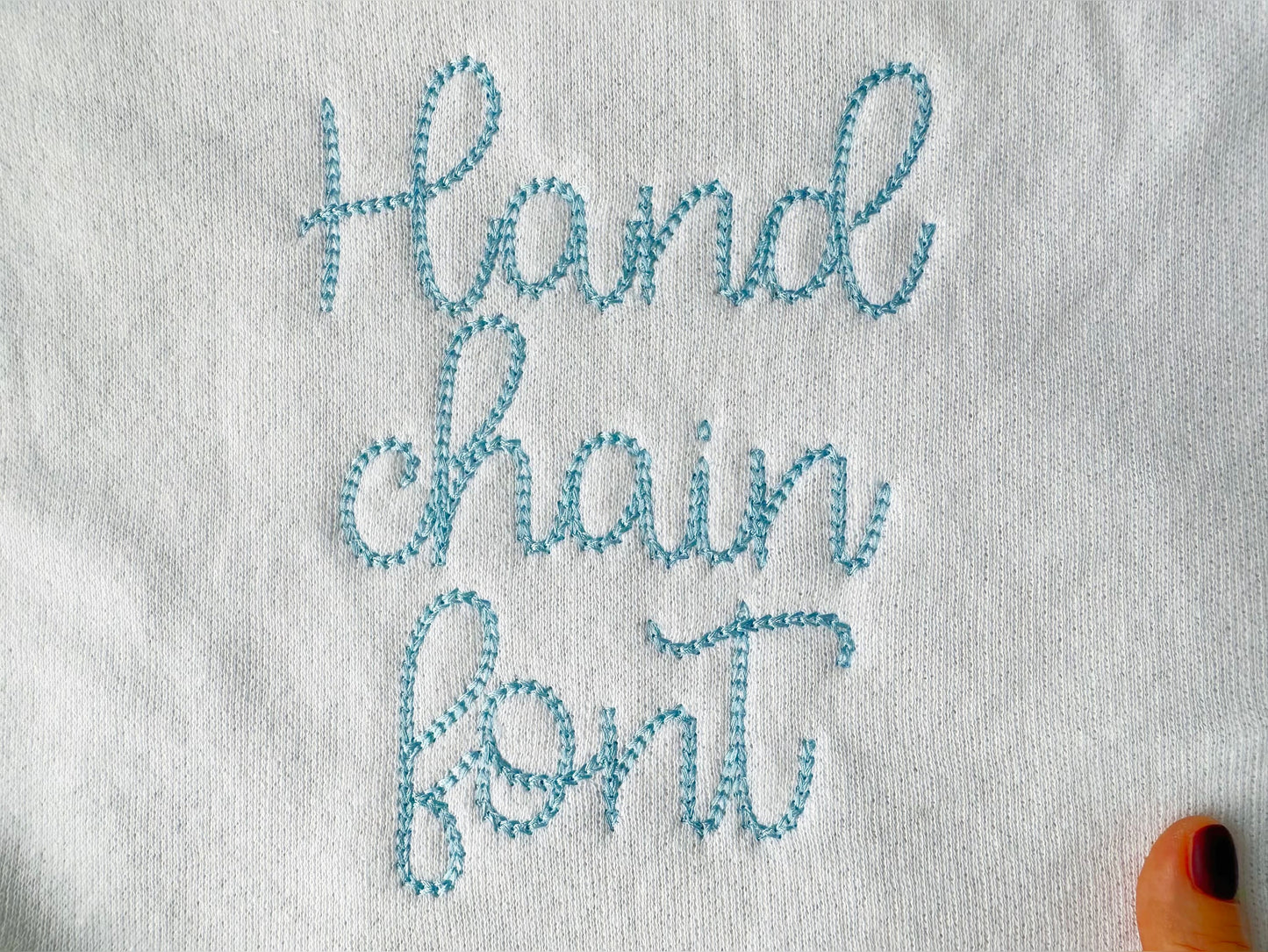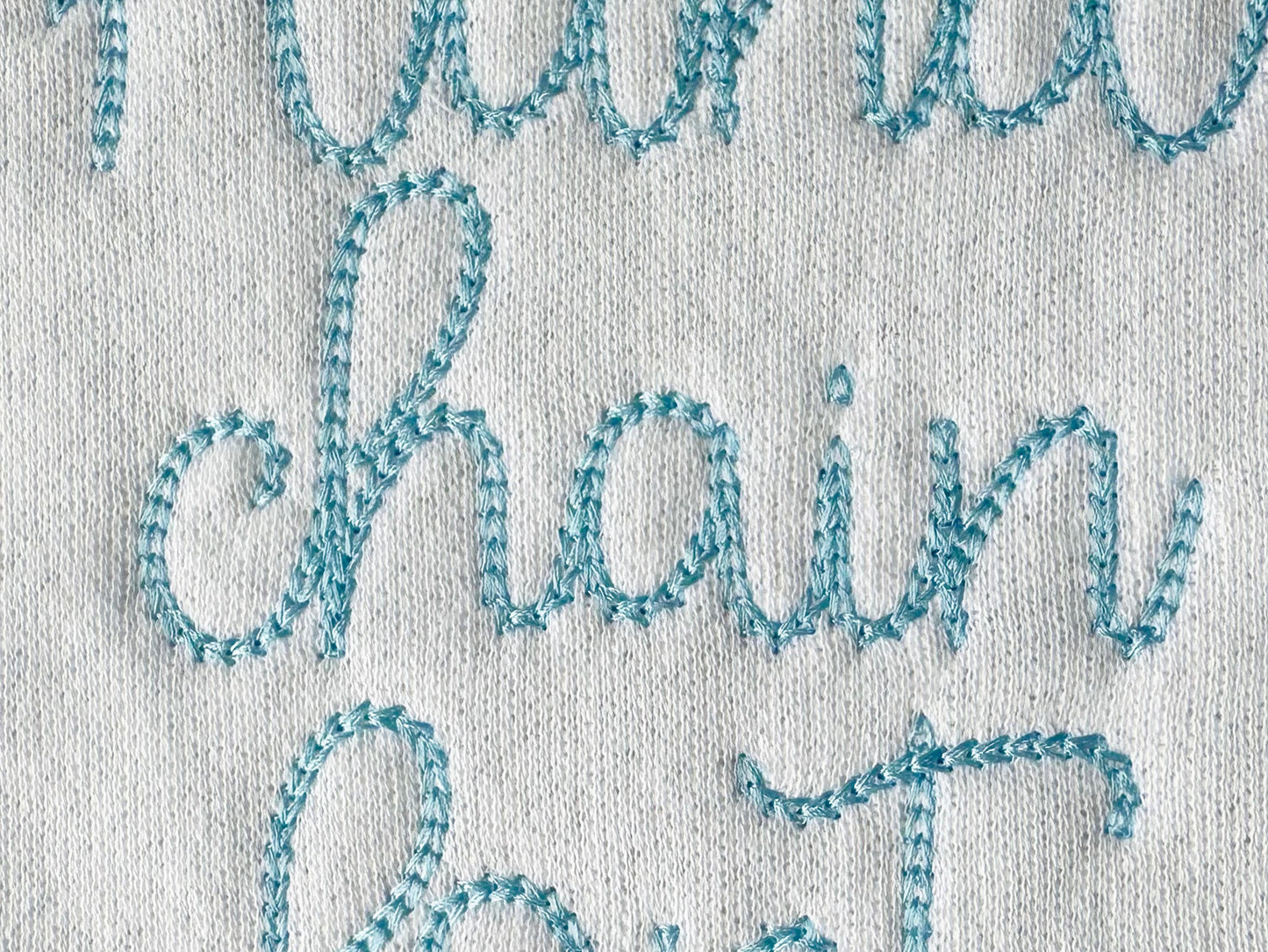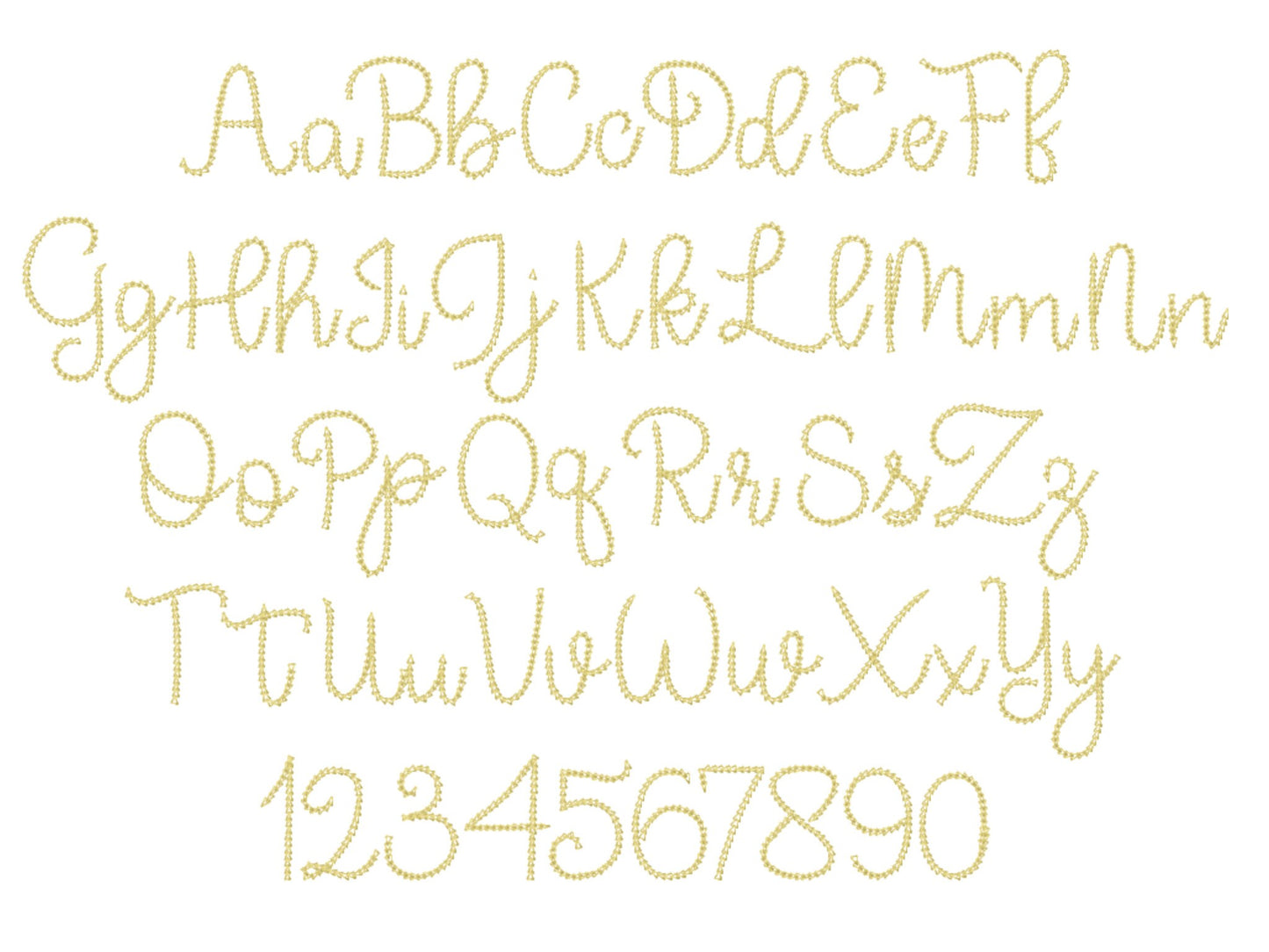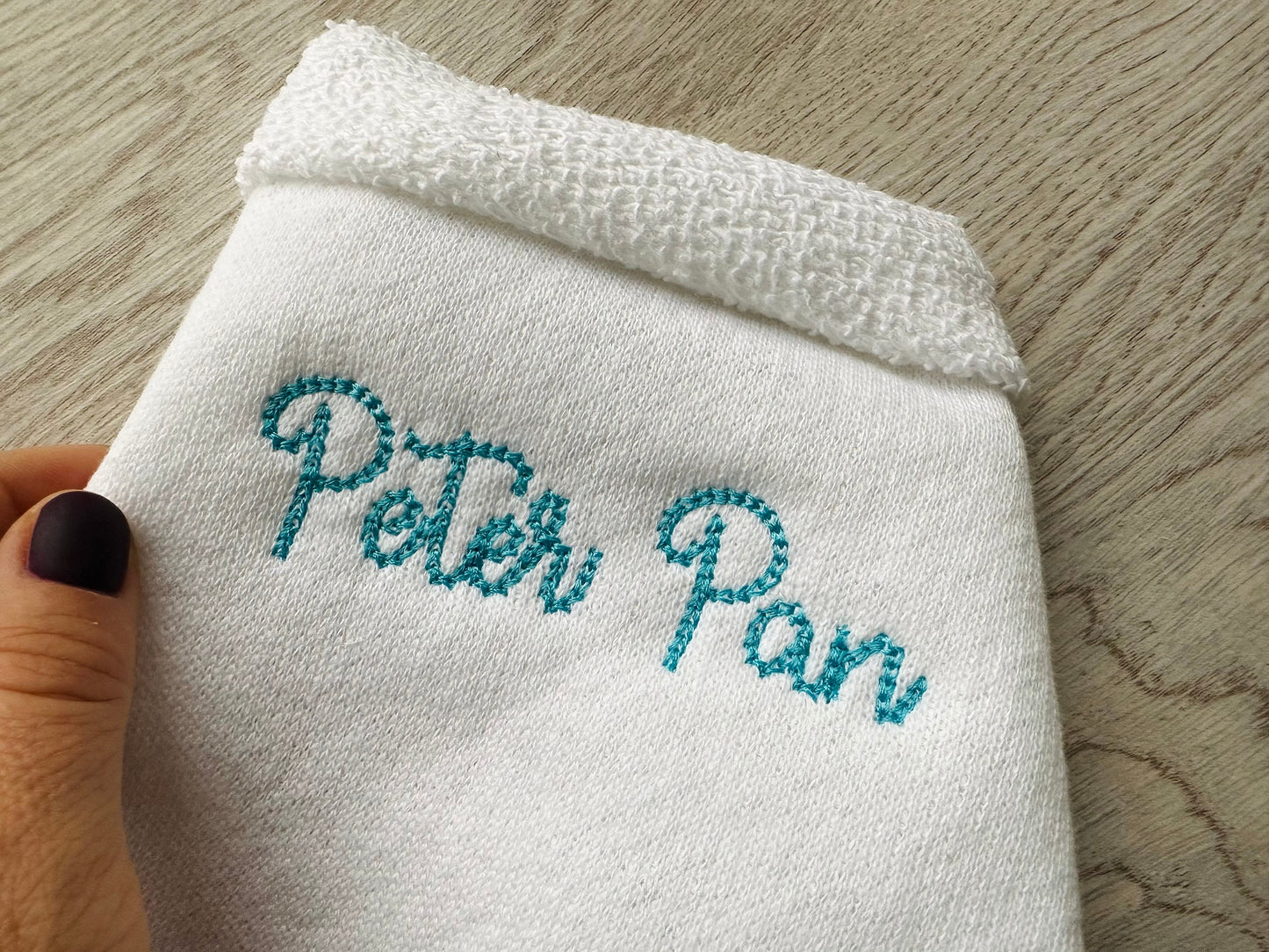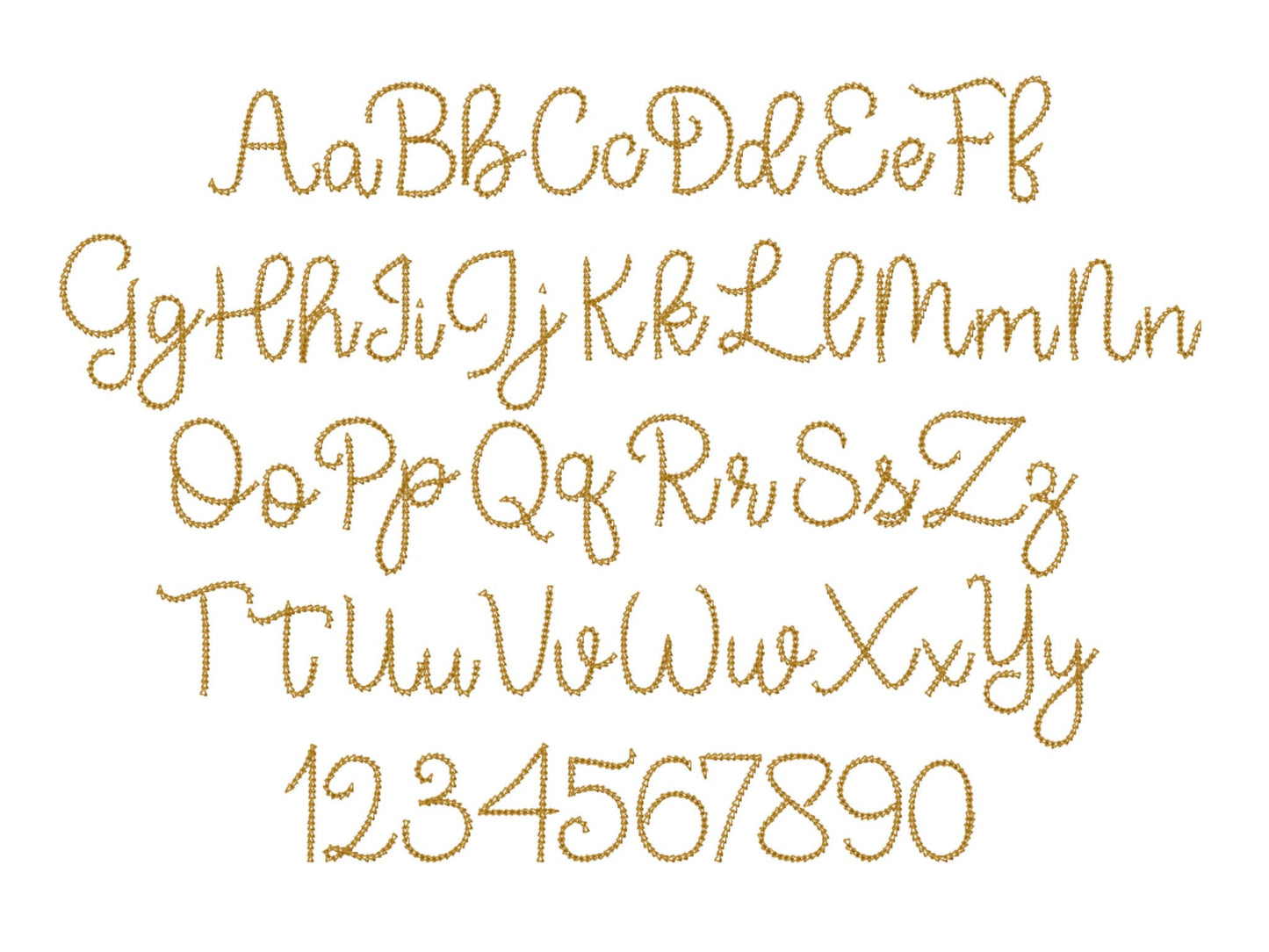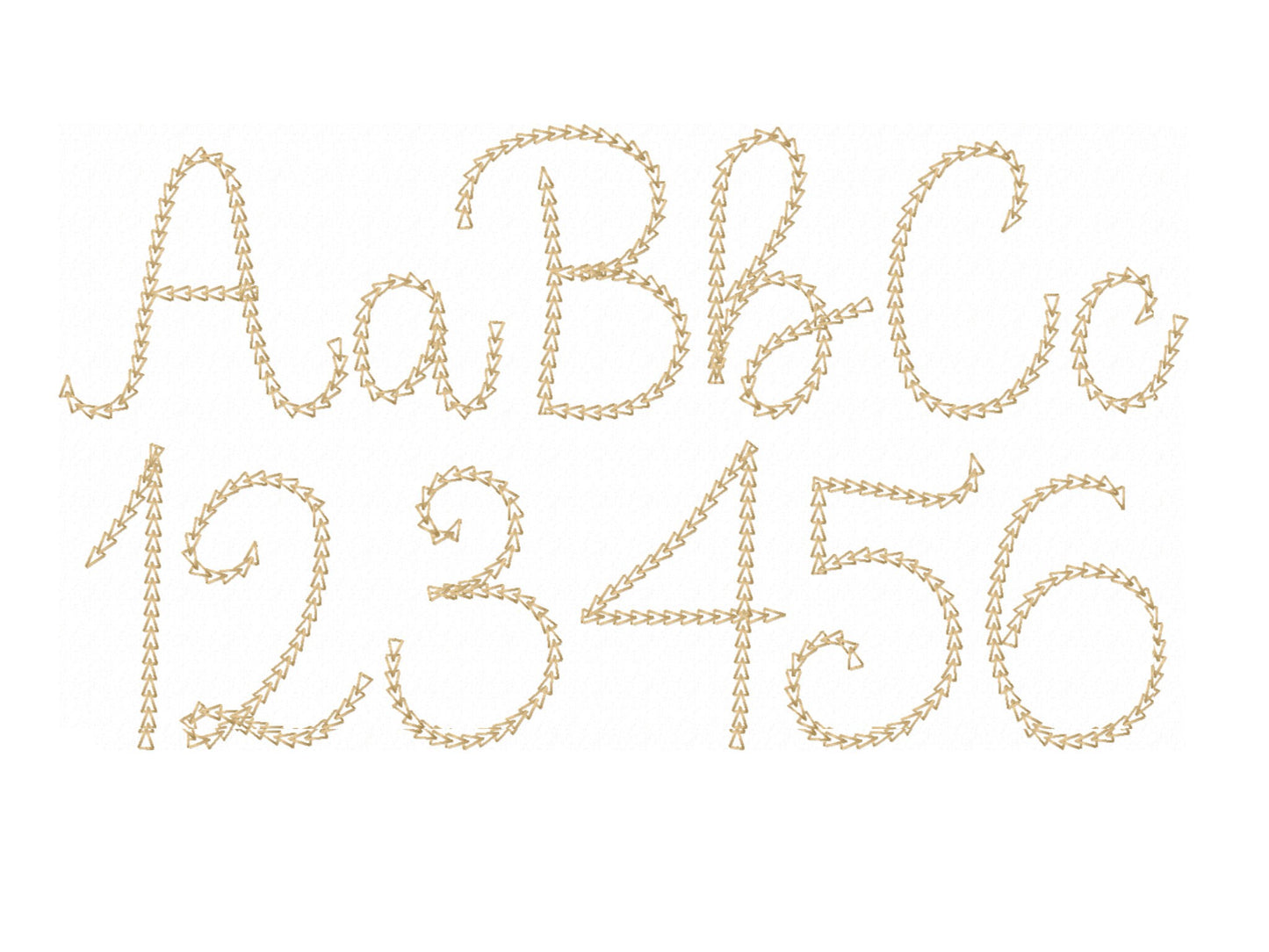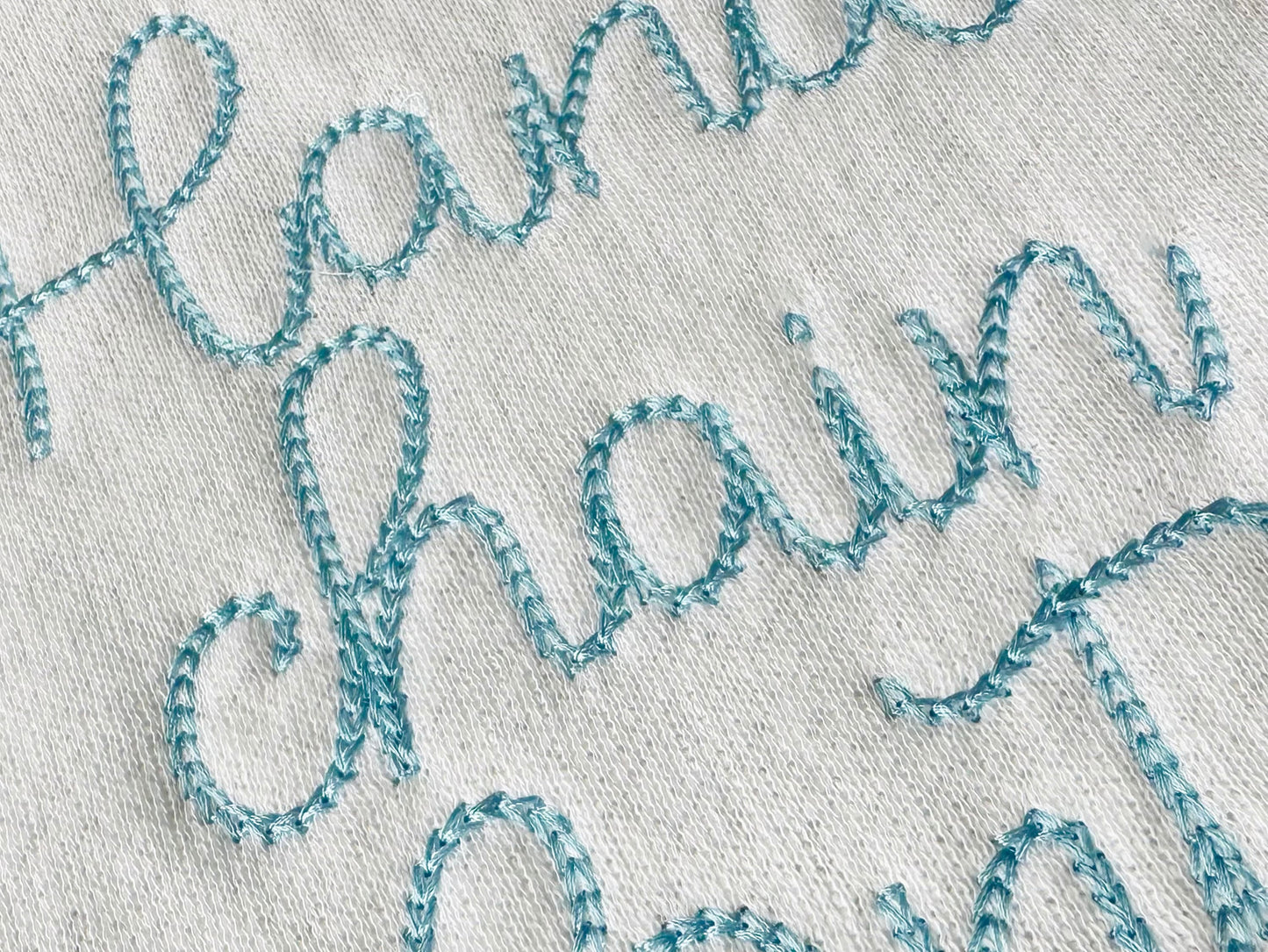
I think the quality is really good. But I found that some of the letters like ( i J q ) the font was wired looking in a name. like if you spelled Mike The I looked like J and the q looked like the J. I found that if i needed to do capital letters to do the names I needed, And when I put to L L it looked like two words.
Perfect font if you like chain style fonts. It is a perfectly sewing font and you will love using it.
This is the best chain font that I have seen so far. It has a smooth and perfect look, and sews great. The seller Anna give very concise information and you will enjoy sewing it and seeing how wonderful it looks on your project.
Stitched out beautifully. So cute!
Stitched out perfectly and looks so cute and hand sewn!
Stitched perfectly and was perfect for a thin material.
Works great, perfect for bandanas!
Great sew out with clean stitching.
This embroidered with ease! It looks much better once it is stitched out.
One of my new favorite kids fonts 😍
Love the way these look when I use them last night. Great for a different look.
Exactly what I was looking for. Very nice font